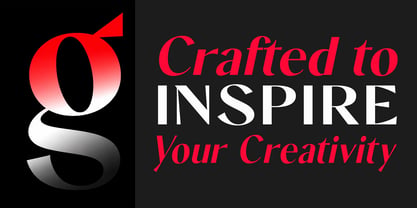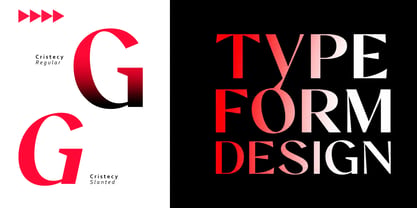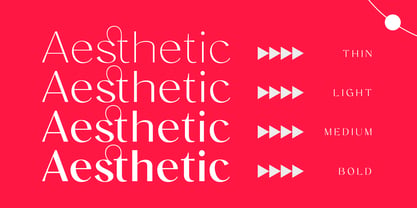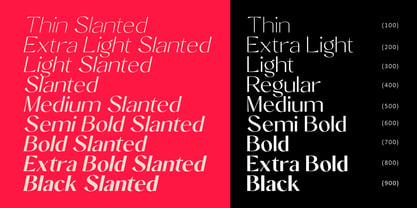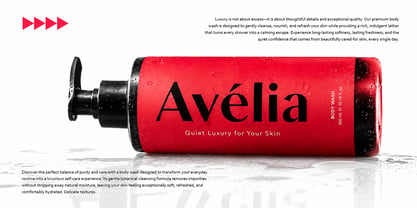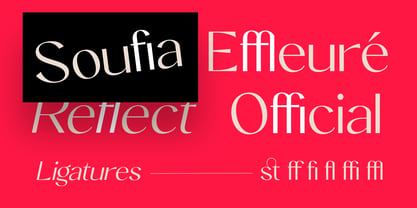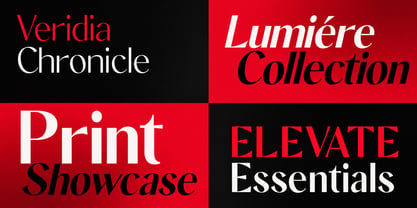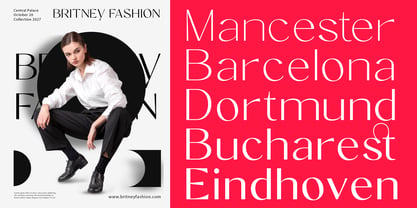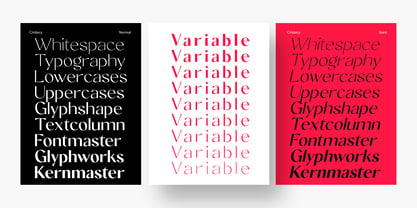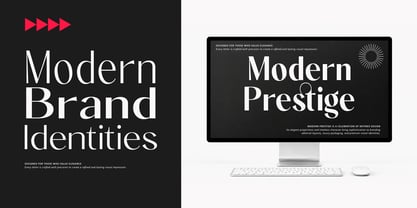
Cristecy
by Ulfa Foundry
Cristecy is a modern display serif with a confident and distinctive personality. Carefully crafted with elegant curves, balanced proportions, and clean contemporary forms, it is designed to bring clarity and character to display typography. Available in 9 weights and 5 widths, Cristecy offers the versatility needed for branding, editorial layouts, packaging, logos, advertising, and other creative applications. With complete Latin Pro language support, it performs beautifully across a wide range of languages and design projects.